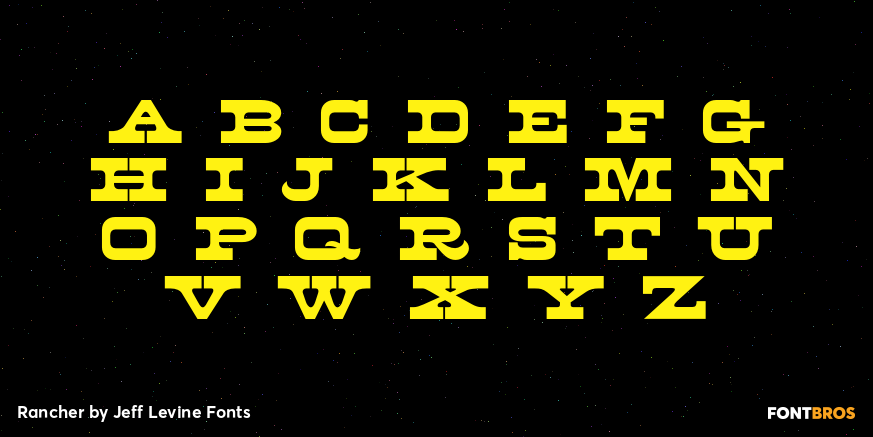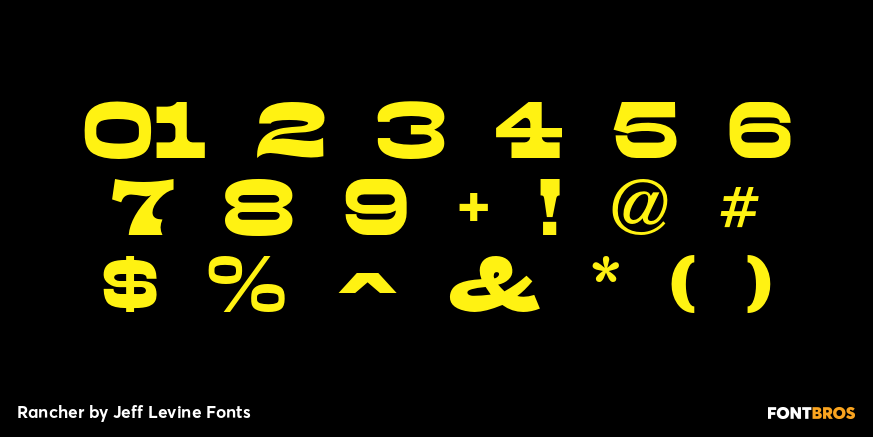
Rancher
Rancher JNL was inspired by classic wood type. This wide, slab serif typeface is reminiscent of wanted posters, broadsides and other printed matter from the 1800s.